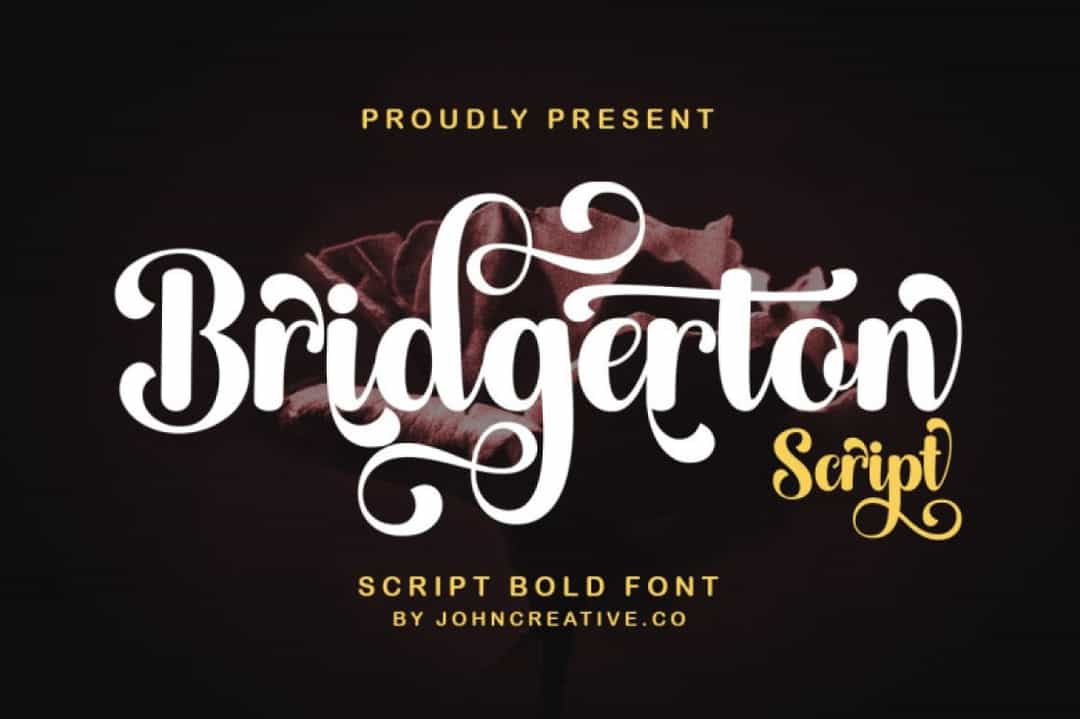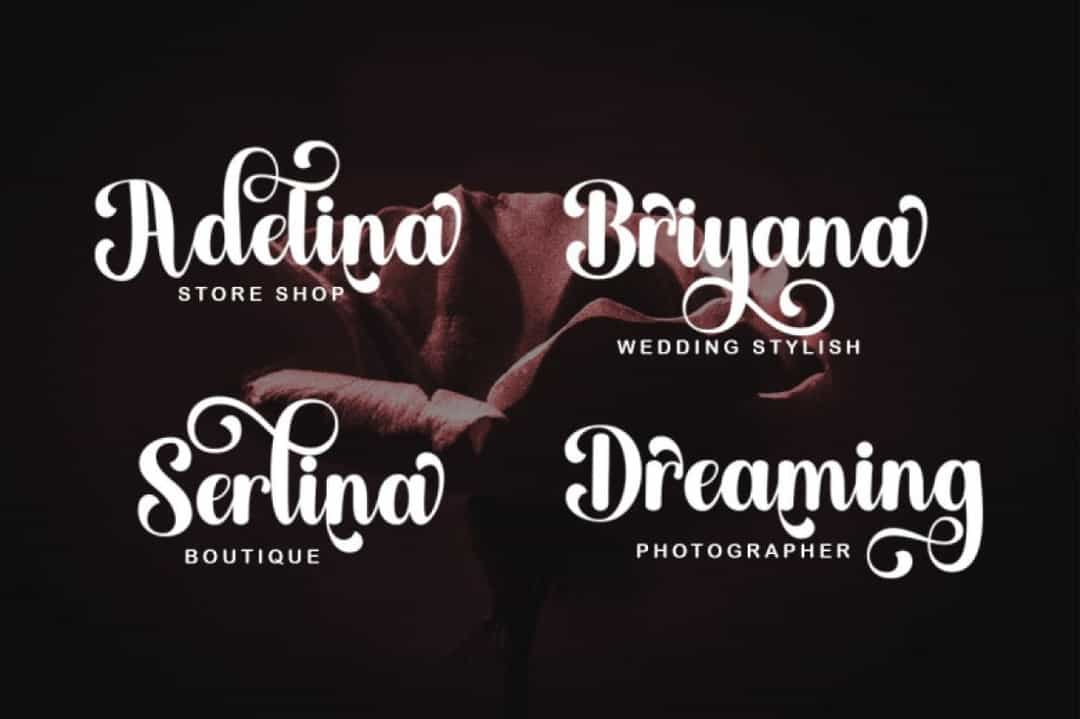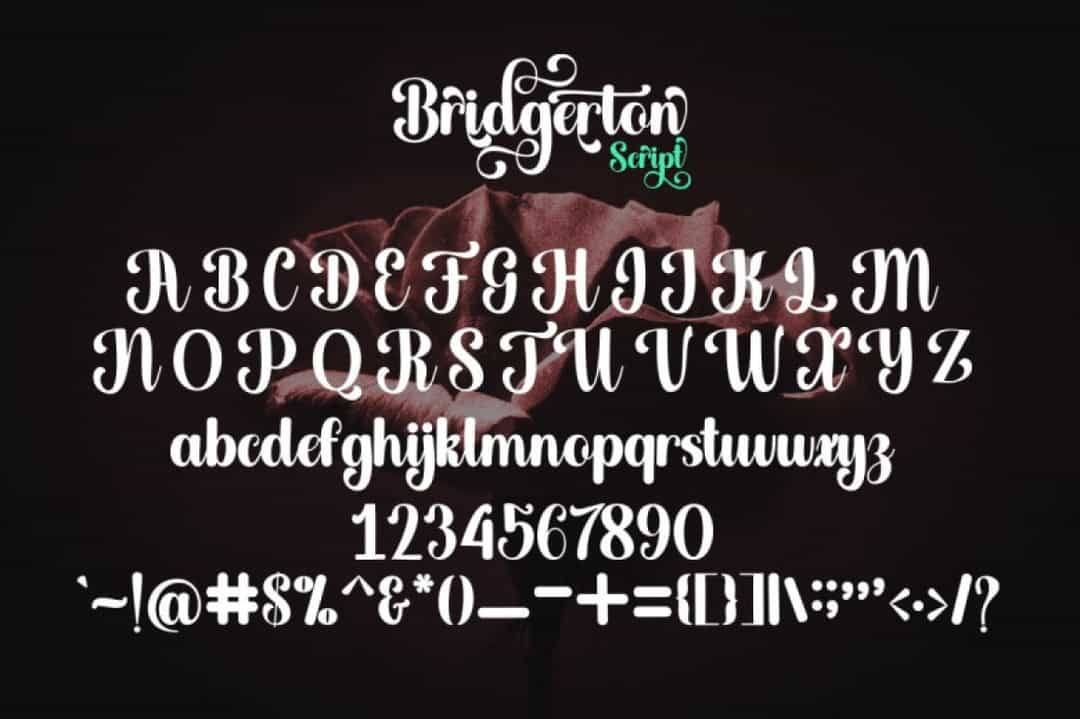
Bridgerton is an elegant yet delicate Calligraphy Script font with flowing characters at its base, creating a casual but elegant aesthetic. Perfect for use as wedding invitations, logos, T-shirts, headings letterheads labels signage posters news badges etc.